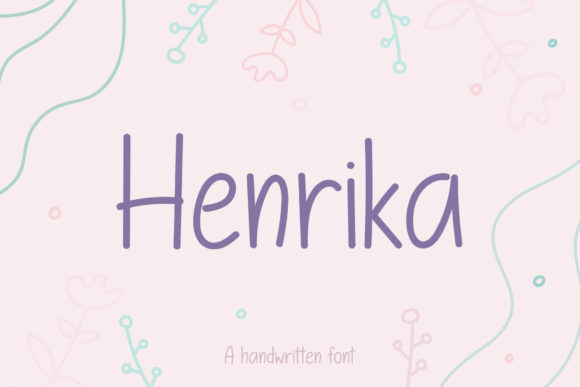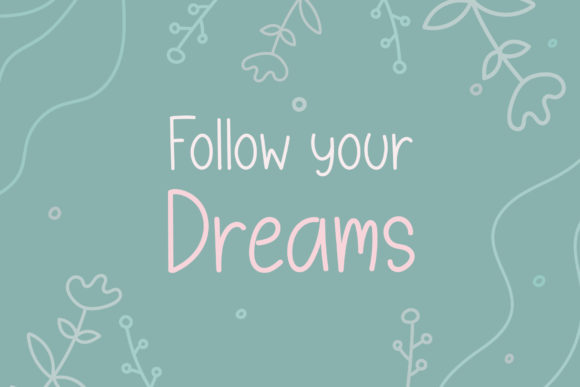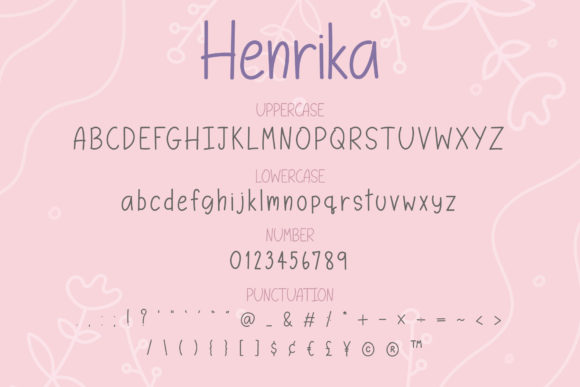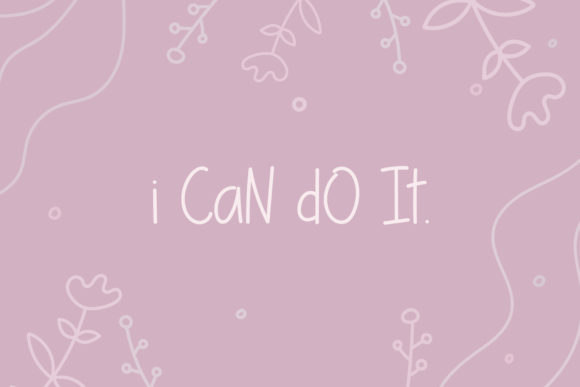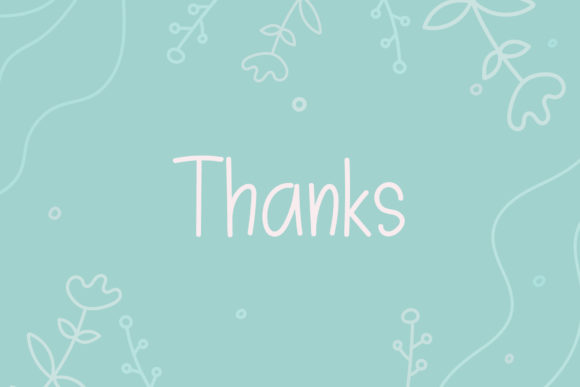
Henrika Font
About Henrika Font
Henrika feels equally charming and elegant. This handwritten font is the perfect fit for all of your logos, branding, social media, and crafty DIY projects.